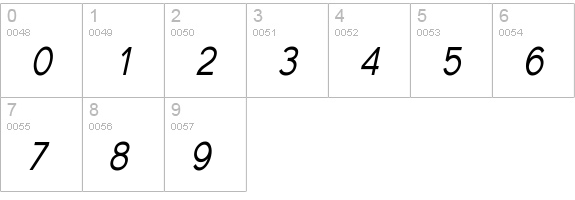
Florencesans SC Cond Italic is a distinctive, condensed-width, italic variant in the Florencesans typeface family \xE2\x80\x94 well suited to design and typography projects.
Florencesans SC Cond Italic is a sleek and elegant font with a touch of sophistication. Its condensed form makes it perfect for creating stylish and modern designs that need to save space without compromising on style. The italicized version adds a dynamic and italic flair to any text, making it stand out with a sense of movement and energy. This versatile font is ideal for various design projects, such as branding, advertising, invitations, and more. Whether you're looking to add a touch of class to your website or give your print materials a contemporary edge, Florencesans SC Cond Italic is sure to impress. Best of all, this font is free to download at FontsMarket.com, allowing you to access its beauty and functionality without any cost. Don't miss out on this opportunity to enhance your designs with the unique charm of Florencesans SC Cond Italic.